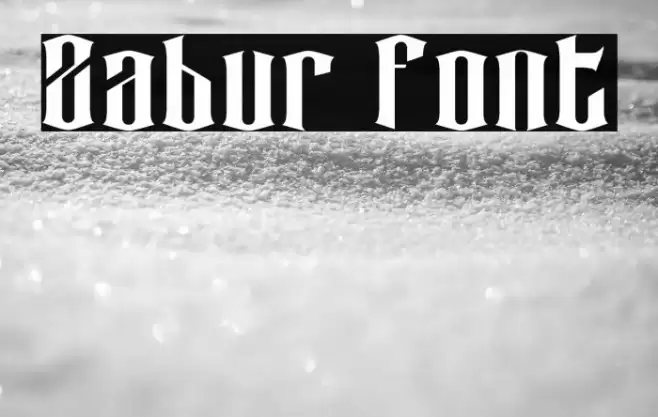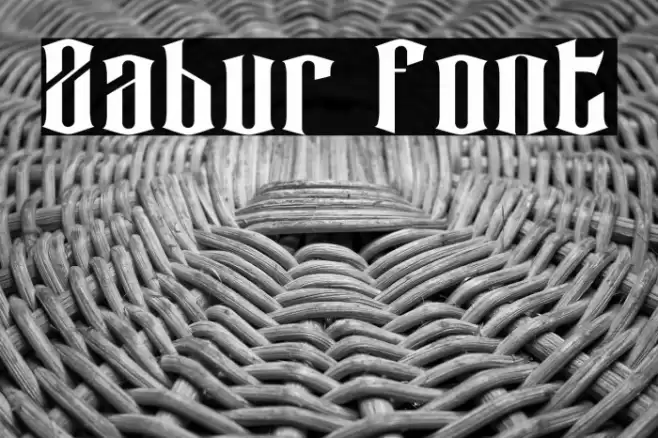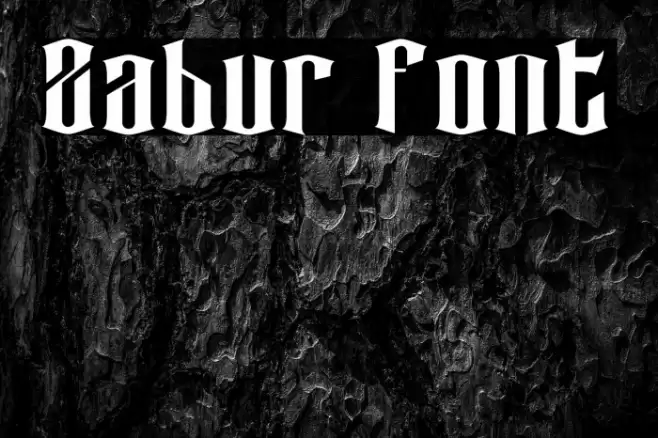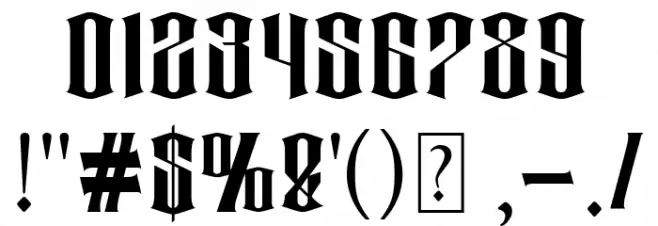
Zabur Font
Zabur Description
This font features a bold and dramatic style reminiscent of traditional Blackletter typefaces. Each character is designed with sharp, angular lines and a high contrast between thick and thin strokes, giving it a striking and authoritative appearance. The uppercase letters are particularly ornate, with intricate details that enhance their visual impact. The lowercase letters maintain the same level of detail, ensuring consistency throughout the typeface. Numbers and special characters are equally bold, making them stand out in any design. This font is perfect for projects that require a historical or gothic aesthetic, such as posters, book covers, or branding for products that want to convey a sense of tradition and strength.
A bold, dramatic Blackletter-style font with high contrast and intricate details from Uncategorized fonts.
- Proposed Projects: Ideal for historical-themed designs, gothic posters, book covers, and branding that requires a traditional and strong aesthetic.
- Overall Style: Vintage